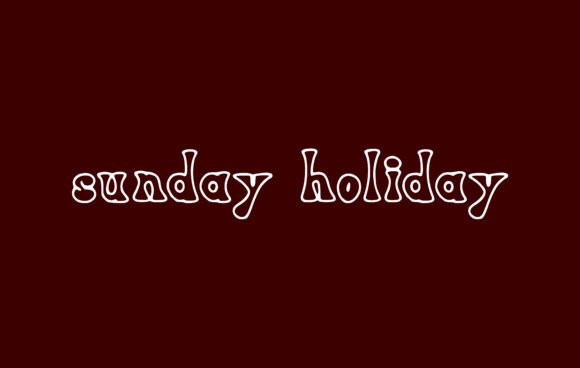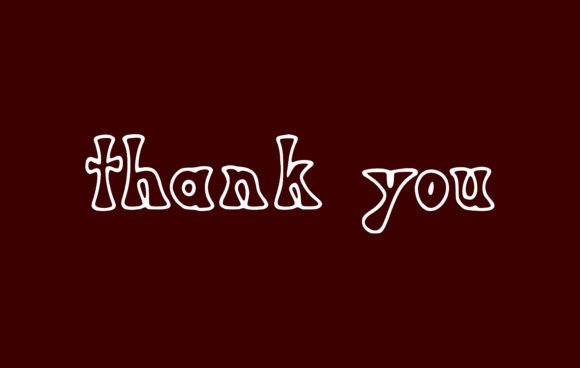
Adley Font – Free Download
Introduction to Adley Font
Adley font is an authentic handwritten font with a romantic touch.
Key Features of Adley Font
Why Choose Adley Font?